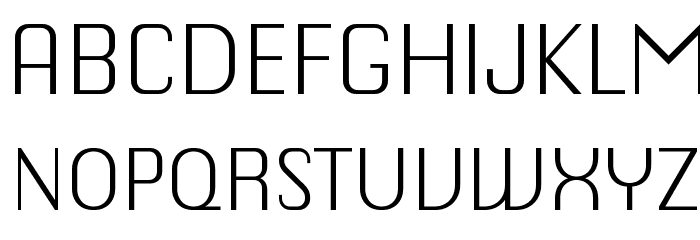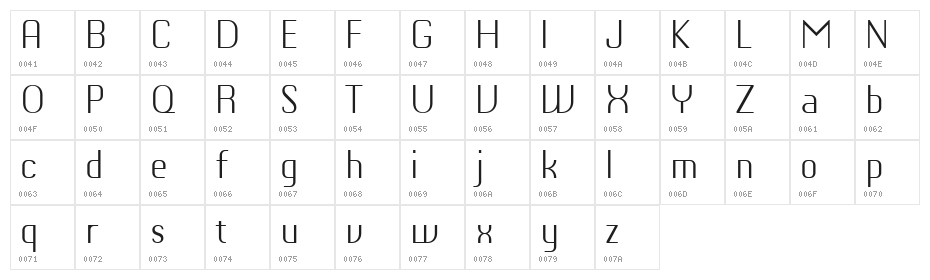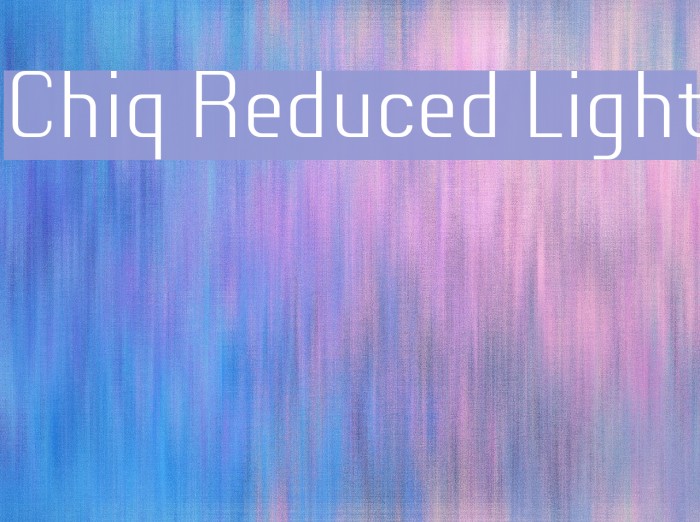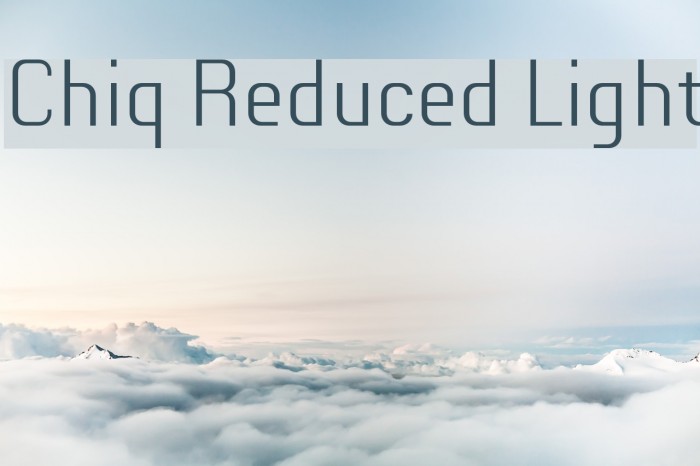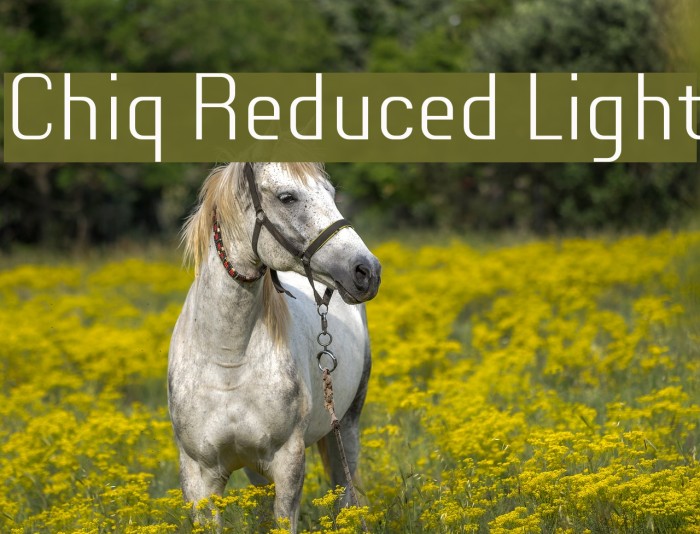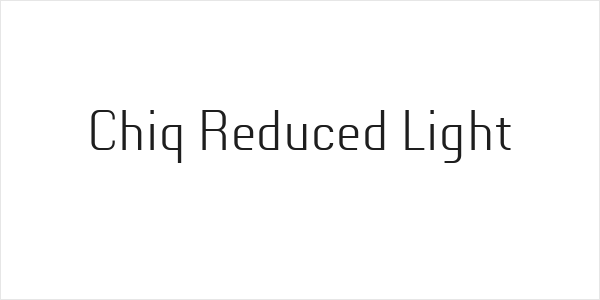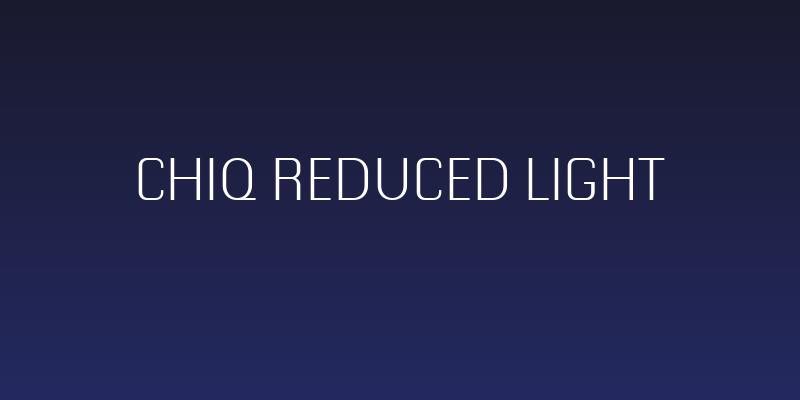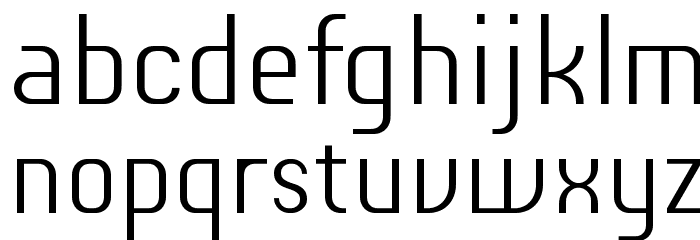
Chiq Reduced Light Font
Chiq Reduced Light Description
This font features a sleek and modern design with clean lines and a minimalist aesthetic. The characters are tall and narrow, giving it a condensed appearance. The strokes are uniform in thickness, contributing to a low contrast look. The uppercase and lowercase letters maintain a consistent style, with rounded edges that soften the overall geometric structure. The numerals and special characters are designed to match the letterforms, ensuring a cohesive look across all text. This font is ideal for projects that require a contemporary and sophisticated touch, such as branding, editorial design, and digital interfaces.
| Proposed Projects | Ideal for branding, editorial design, digital interfaces, and modern advertising. |